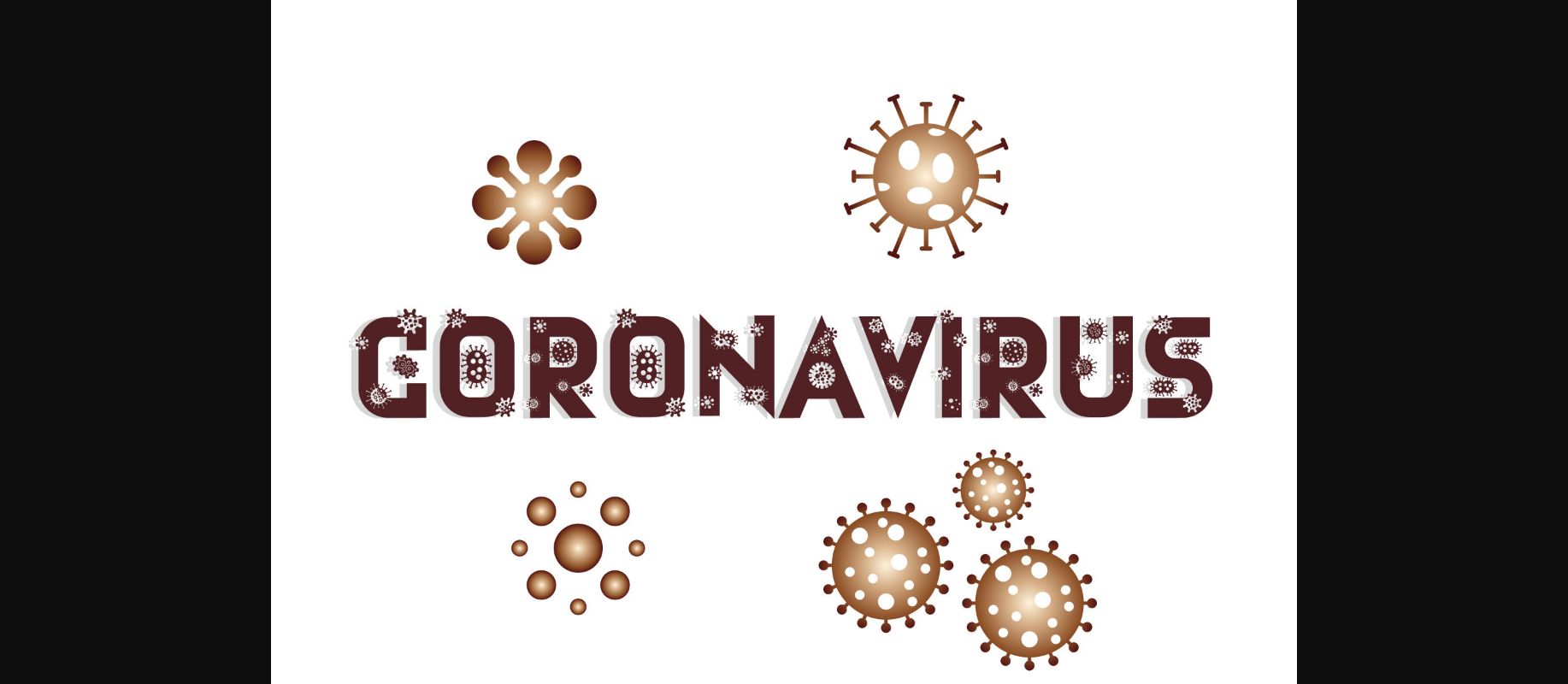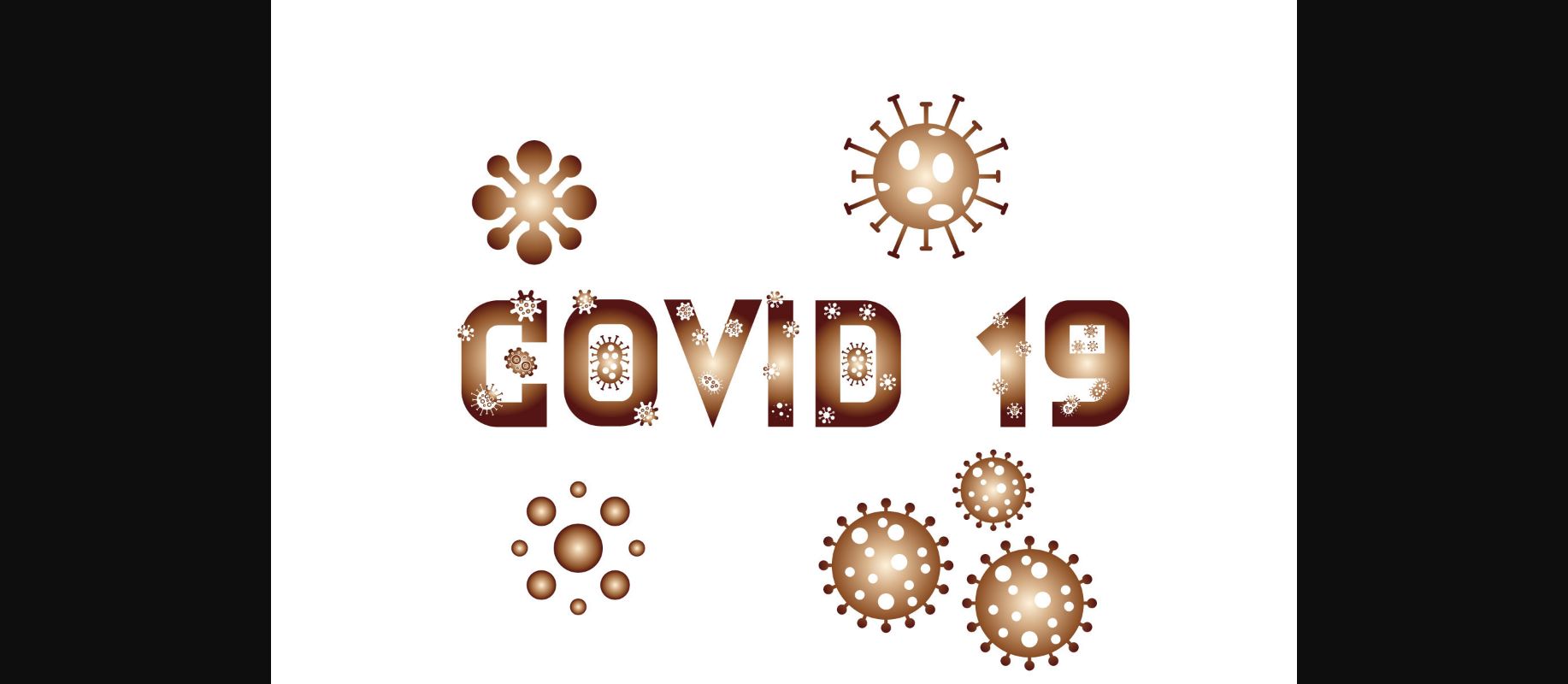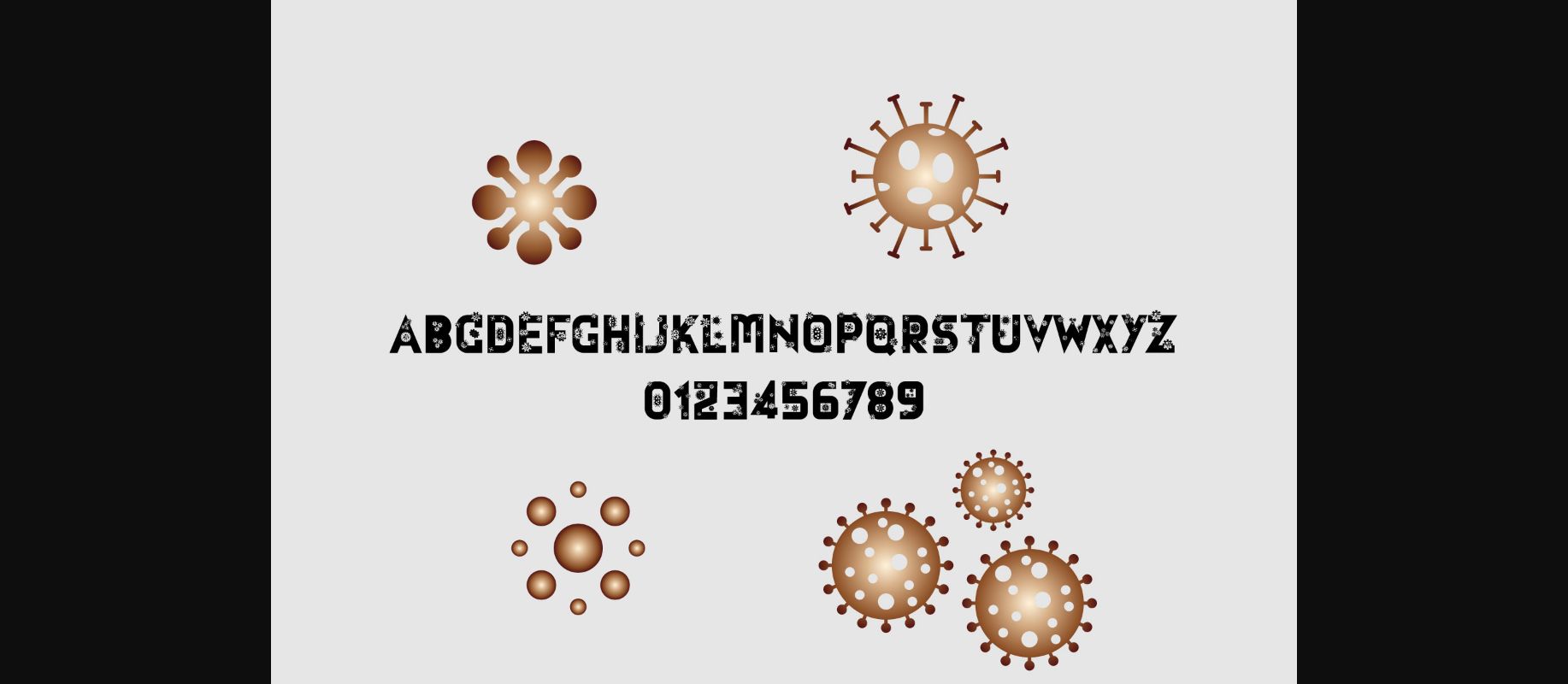
About Coronavirus Font
Coronavirus is a bold and uniquely designed decorative font. No matter the topic, this font will be an incredible asset to your fonts’ library, as it has the potential to elevate any creation.